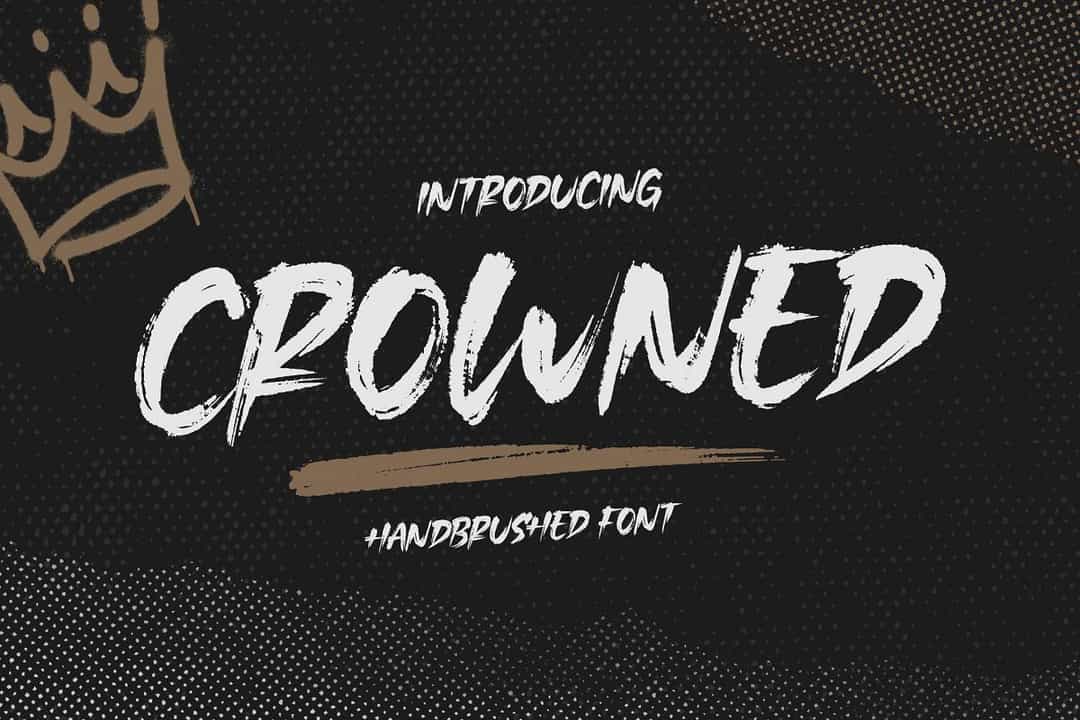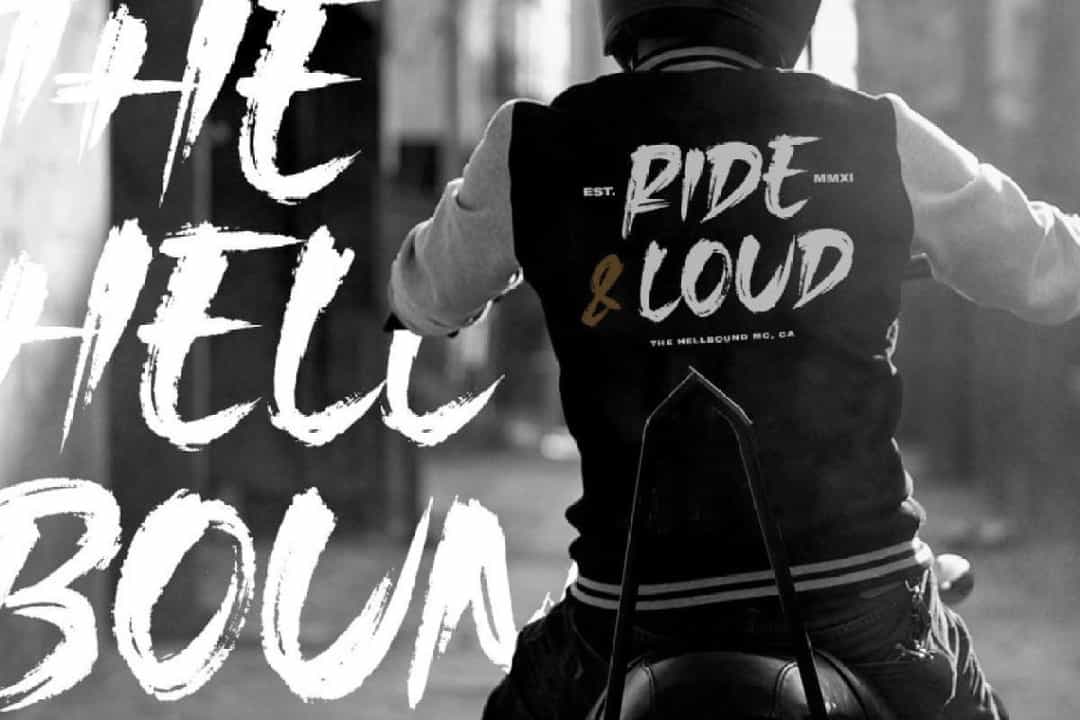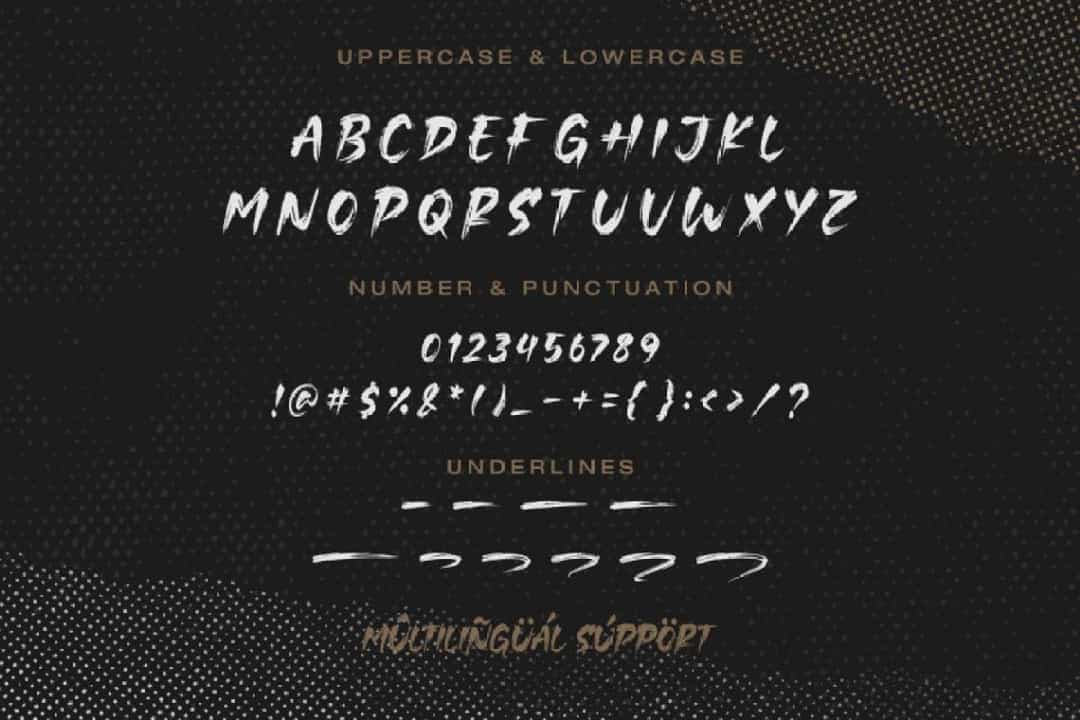
Discover Crowned Font, part of the Brush collection—a versatile and unique font perfect for adding a personal touch to your projects. Download it for free and enjoy crafting designs with style, from invitations to social media posts. This font is available exclusively for personal use, giving you the freedom to create without limits. Unlock your creativity with Crowned Font today!
Crowned is an eye-catching hand-brushed font, suitable for contemporary designs that creates a warm and welcoming environment in any project. Perfect for packaging and branding projects such as magazines and weddings, wedding invitations, social media posts, or simply conveying words on an overlay text layer.